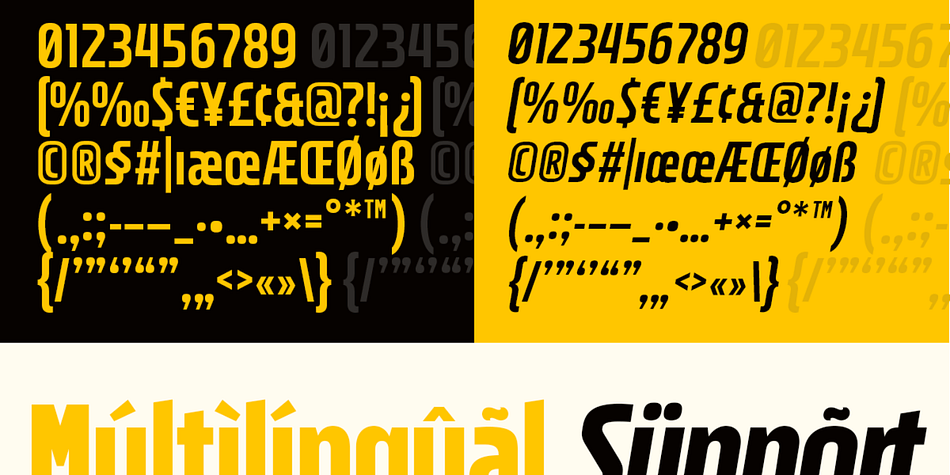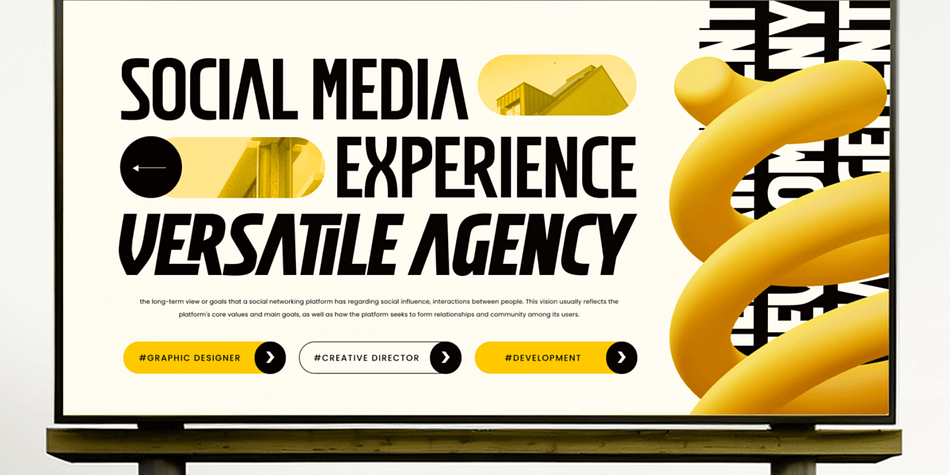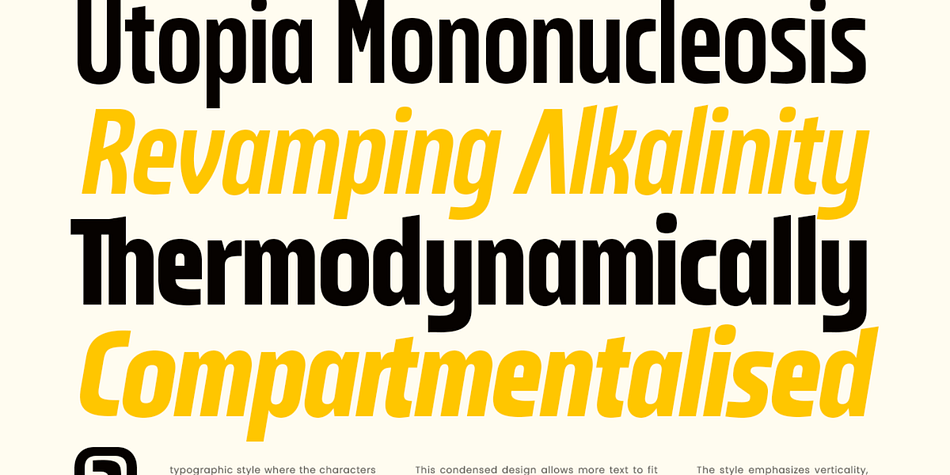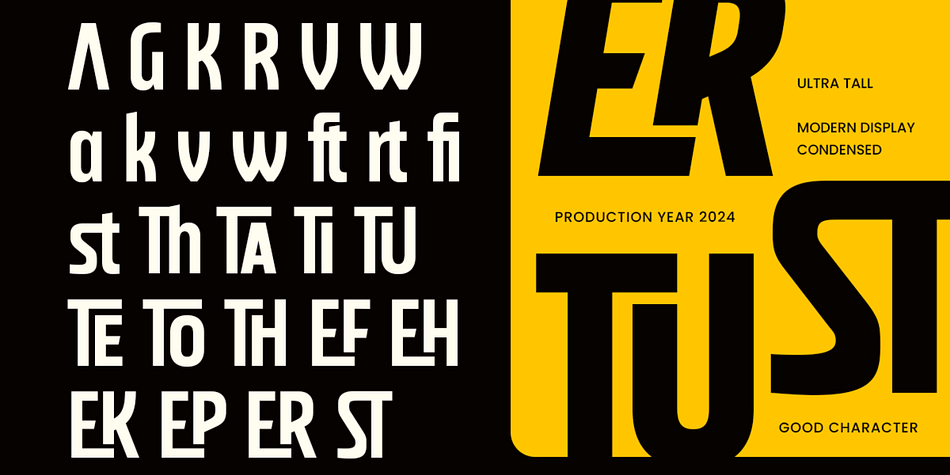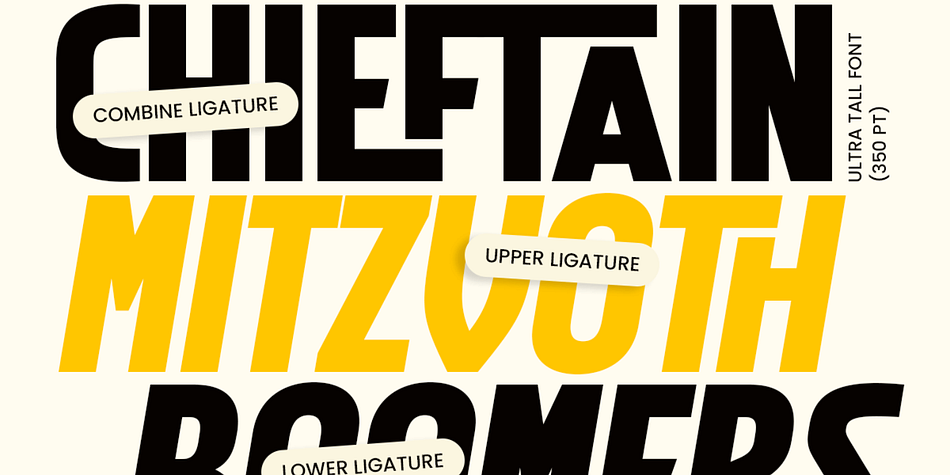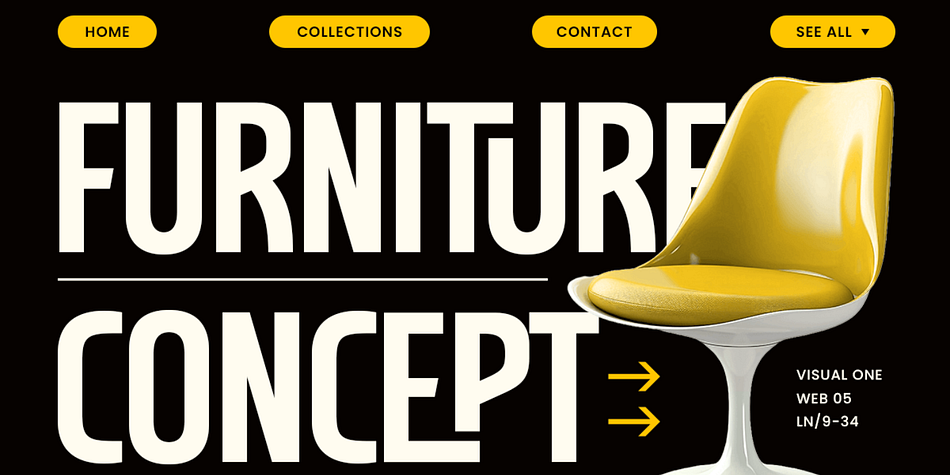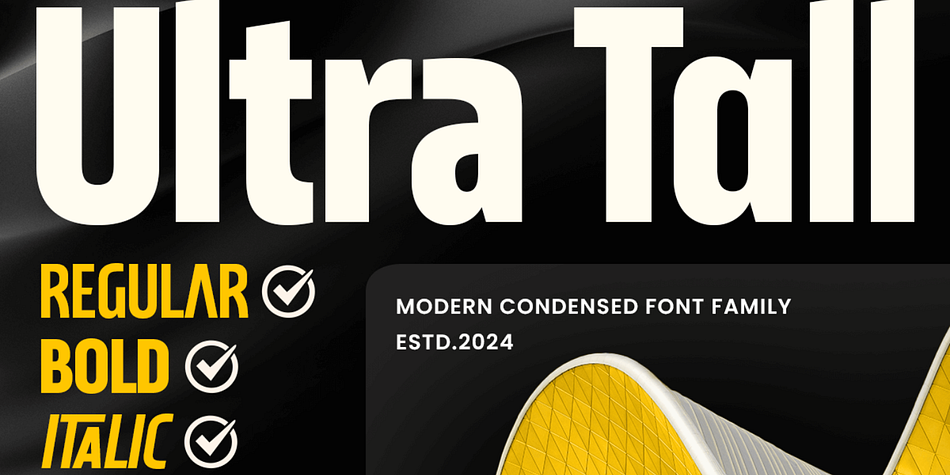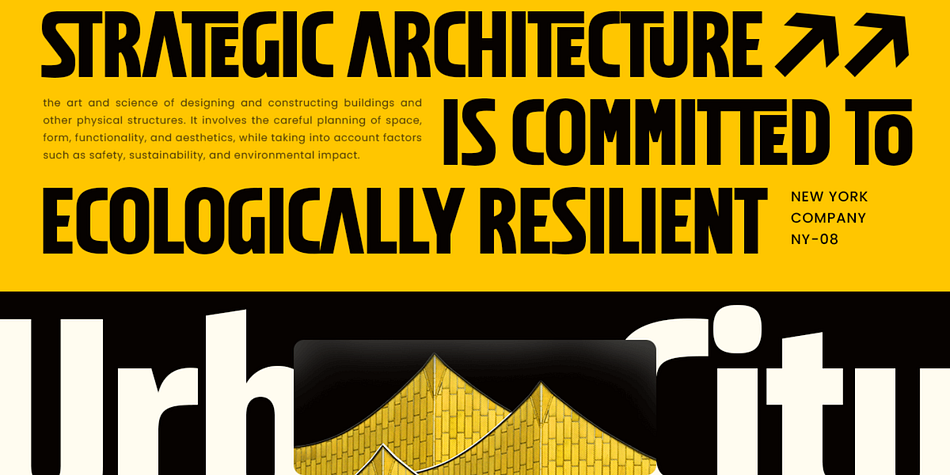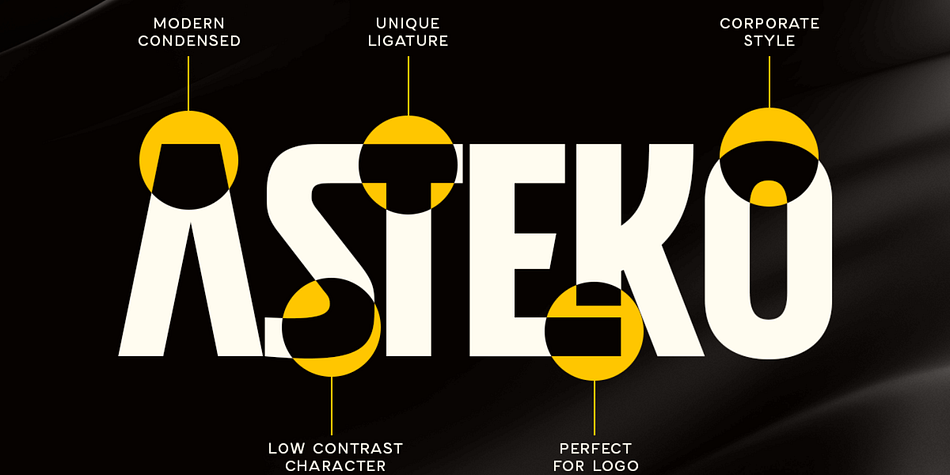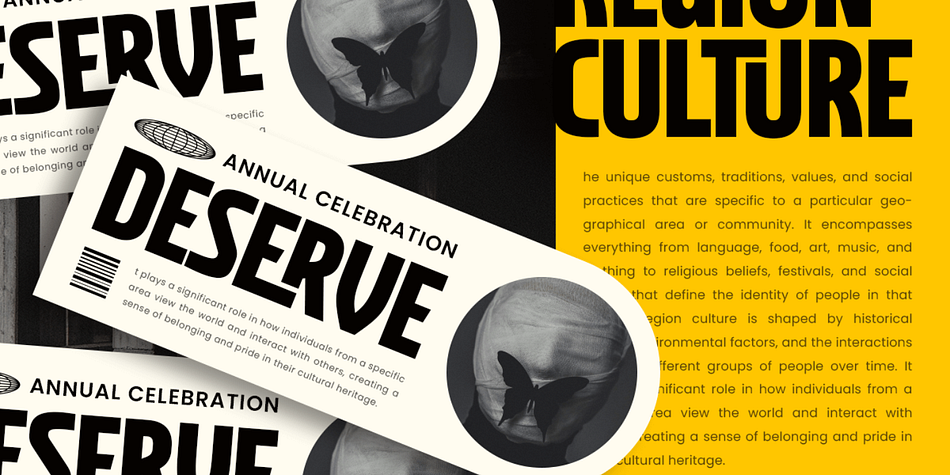
A Bold Statement in Every Letter
Ultra Tall is a modern condensed font family designed to make a striking impression. Its elongated characters and sleek lines create a bold yet elegant aesthetic, perfect for contemporary design needs.
Versatility Meets Style
Whether you’re designing headlines, logos, or branding materials, Ultra Tall offers the flexibility of a full font family. Its modern and minimalistic approach ensures your projects stand out while maintaining a clean and professional look.
Perfect for Dynamic and Creative Projects
With its unique condensed style, Ultra Tall is ideal for fashion, editorial, and promotional designs. Its bold presence effortlessly conveys confidence and sophistication, making it a valuable tool for designers.
Ultra Tall Modern Condensed Font Family Features:
Alternates & Ligature Characters Ready
Available with 4 Styles to make your design standout
Punctuation, Number, and Symbol
Uppercase and Lowercase
Opentype Features
Multilingual Characters available for:
Afrikaans, Albanian, Asu, Basque, Bemba, Bena, Breton, Chiga, Cornish, Dutch, English, Estonian, Filipino, Finnish, Friulian, Galician, German, Gusii, Indonesian, Irish, Italian, Kabuverdianu, Kalenjin, Kinyarwanda, Luo, Luxembourgish, Luyia, Machame, Makhuwa-Meetto, Makonde, Malagasy, Manx, Morisyen, North Ndebele, Nyankole, Oromo, Portuguese, Quechua, Romansh, Rombo, Rundi, Rwa, Samburu, Sango, Sangu, Scottish Gaelic, Sena, Shambala, Shona, Soga, Somali, Spanish, Swahili, Swedish, Swiss.